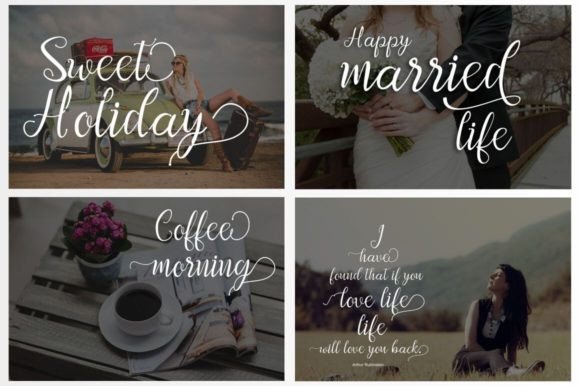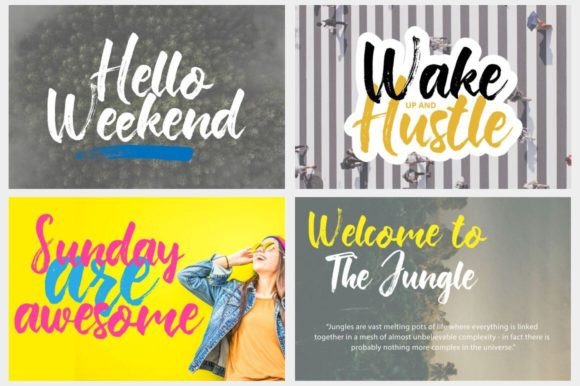
All in One Font Bundles Font
Discover the All in One Font Bundles – a collection of 50 handwritten fonts covering scripts, calligraphy, signatures, and brushes. With this bundle, you get a diverse range of styles in one package, perfect for adding a personal touch to your projects. Whether you’re creating invitations, posters, or social media graphics, these fonts offer versatility and charm. Unlock endless possibilities with this all-inclusive font set!